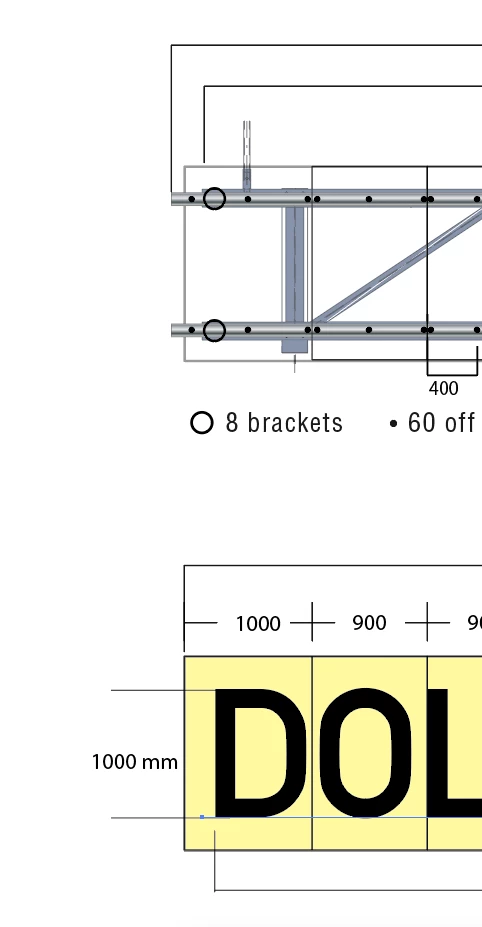
DIN Font and variations
I have an issue finding the right font for a picky customer.
It's written in the standard for signage to use a font called "DIN Serifenlose Linear  - Antiqua Teil 2".
I dont have this font available and i cannot find it for purchase.
Instead i used a font called DIN schrift - 1451 mittelschrift.
My customer tells me this is wrong and demands a propper technical explenation for deviating from the standard. I am pretty sure this is close to being the same font. Cannot be 100% sure since i cannot find a refference to the appearance of "DIN Serifenlose Linear  - Antiqua Teil 2".
Any font experts out there which can help out?
Comment from the foundry delivering the font....Seems like the customer is creating the confussion.
at first glance this is not a font we find in our archive - may we ask you to send us the file your customer is using so that we can examine it?
The customer would have to provide the font or a reference to where to purchase it.
Hi @TKAMDAL Did you look through the history information on this page? DIN 1451 - Wikipedia. There appears to be several iterations of the font design. There are some clues on how to find one of the foundries. Let us know what you discover!
Did you try to buy the font? Is the problem finding it for sale?
That's right. Cannot find it for purchase.